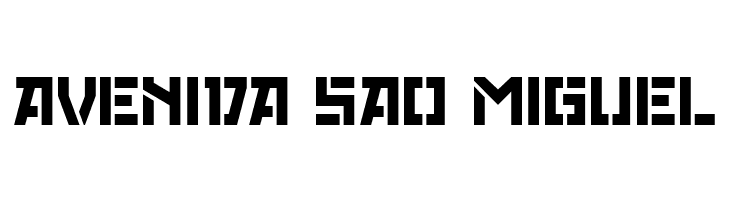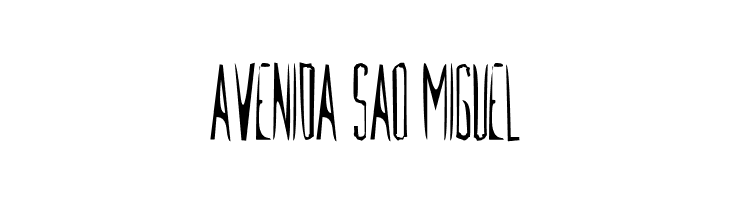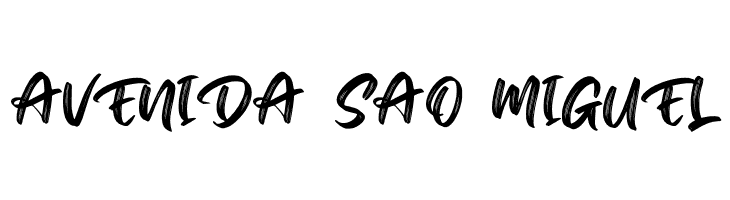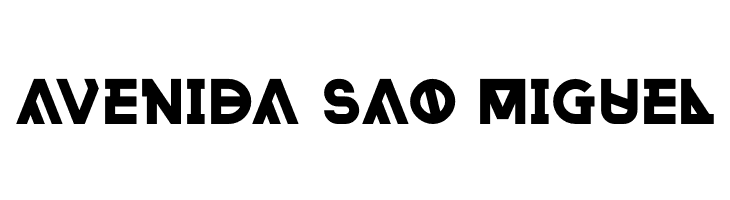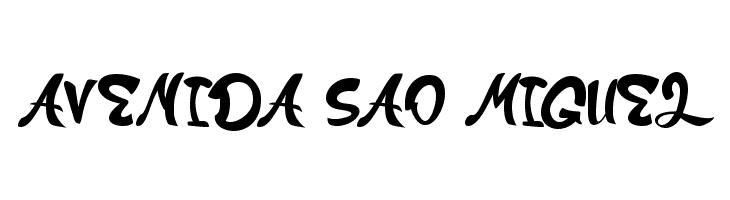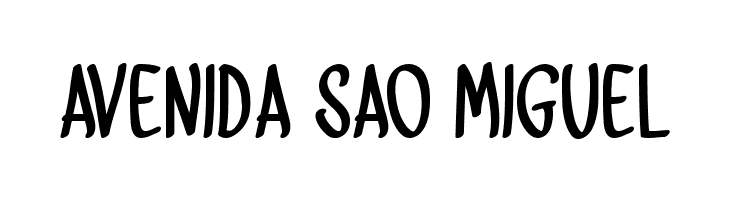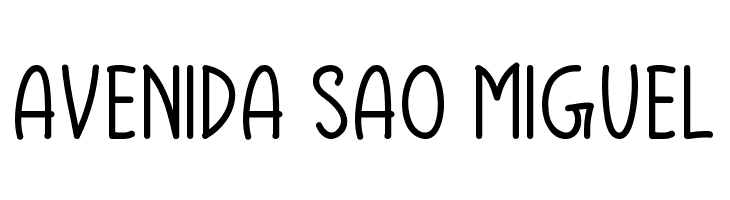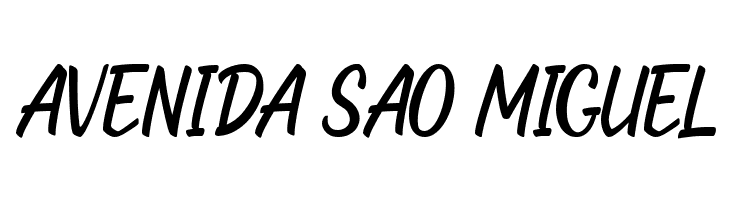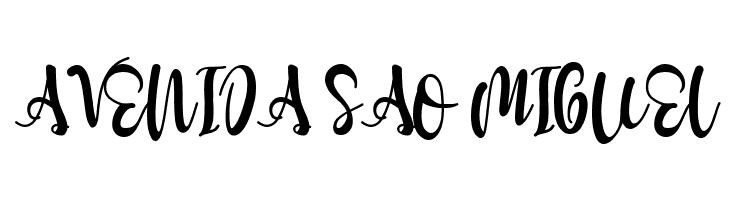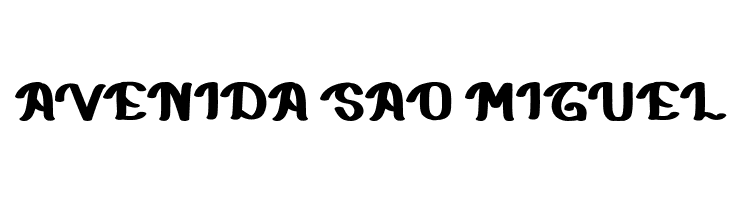
An elegant and flowing script font with intricate loops and swirls.
Elegant handwritten script font.
A narrow, edgy font with elongated characters and sharp angles.
A bold, playful font with flowing, decorative elements.
An ornate, decorative script font with elaborate swirls and flourishes.
A playful and whimsical font with decorative patterns and unique characters.
A bold, handwritten font with dynamic strokes and a playful, artistic style.
A bold, geometric font with a strong, industrial aesthetic.
A bold, geometric font with sharp angles and a modern, industrial style.
A rugged, distressed font with a bold, eroded texture.
A bold, geometric font with a modern, industrial aesthetic.
A bold, geometric stencil font with strong industrial appeal.
A bold, expressive script font with flowing, cursive letterforms.
A bold, distressed font with a vintage, industrial style.
A bold, distressed font with a vintage, grunge aesthetic.
A bold, dynamic brush script font with energetic strokes and fluid motion.
A bold, geometric font with strong, angular lines and a blocky appearance.
A bold, slanted font with high contrast and a modern, dynamic style.
A bold, brush-stroke style font with a dynamic and artistic flair.
A bold, geometric font with angular lines and unique cutouts, perfect for modern designs.
A bold, dynamic script font with playful, flowing strokes.
A bold, flowing script font with a lively, handwritten style.
A modern stencil font with geometric cutouts and bold, structured uppercase letters.
A playful, handwritten font with bold, rounded strokes and a casual vibe.
Highly illustrative font composed of religious and spiritual icon symbols.
Bold, striped font with a modern and decorative style.
A playful, handwritten font with rounded, smooth letterforms.
A decorative font with layered, parallel lines creating a dimensional effect.